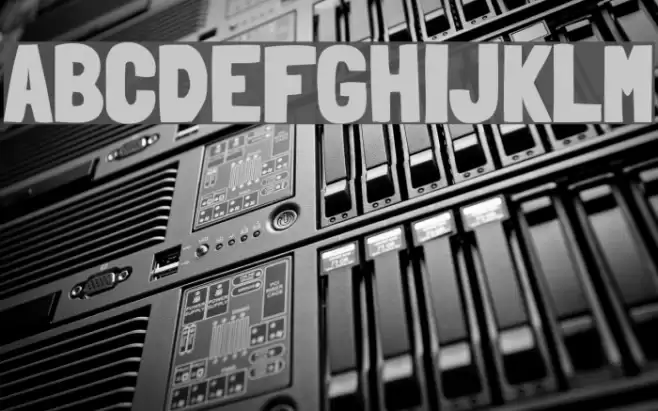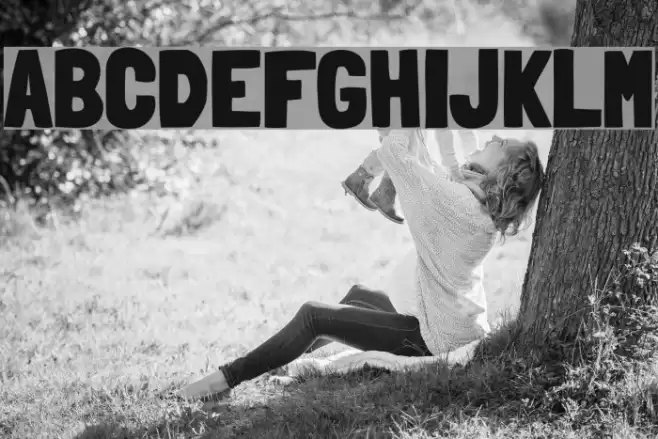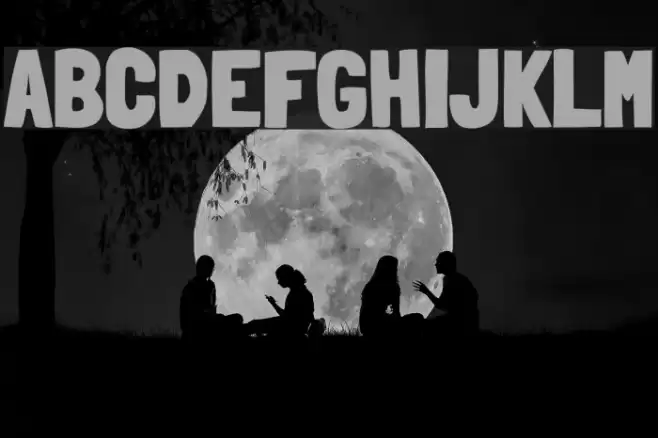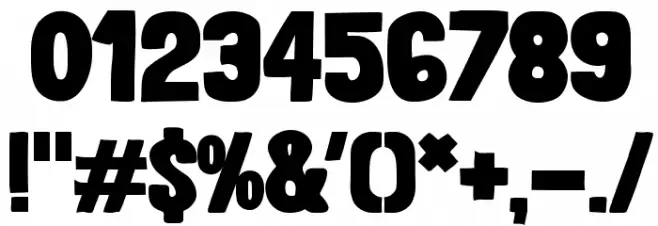
LondrinaBlack-Regular Font
LondrinaBlack-Regular Description
This font features a bold and impactful design with thick, uniform strokes that create a strong visual presence. The characters are rounded and slightly condensed, giving them a playful yet assertive look. The uppercase and lowercase letters maintain consistent proportions, while the numerals and special characters are crafted to match the overall bold style. The font's design is suitable for making a statement, with its high visibility and readability in larger sizes.
A bold, rounded font with thick strokes and a playful, assertive style from Uncategorized fonts.
- Proposed Projects: Ideal for headlines, posters, branding materials, and any design requiring a strong, eye-catching typeface.